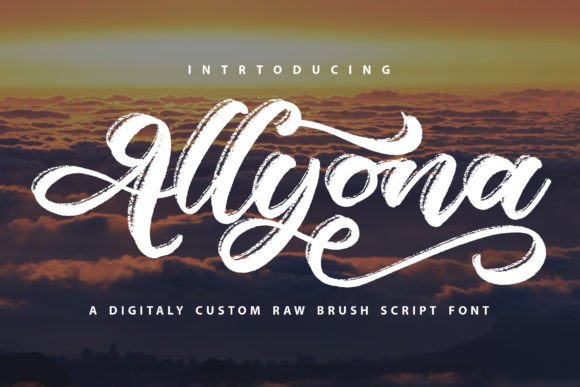
Step into the realm of timeless elegance with Allyona Font, a script font that evokes the essence of sophistication and charm. Its meticulously crafted glyphs dance across the page with a touch of whimsy, leaving an unforgettable impression that captivates the hearts of all who behold it.
Designed by the visionary Vunira, Allyona Font is a masterpiece that effortlessly blends the grace of calligraphy with the allure of modern design. With its sweeping strokes and playful ligatures, this font commands attention and adds a touch of magic to any creative project.
Whether you're designing wedding invitations, creating logos, or simply adding a touch of flair to your social media posts, Allyona Font is the perfect choice. Its versatility knows no bounds, allowing you to explore a myriad of possibilities and unleash your creativity.
Immerse yourself in the world of Allyona Font and let its beauty take your breath away. With its undeniable charm and timeless appeal, this font will transform your designs into works of art that leave a lasting impression.